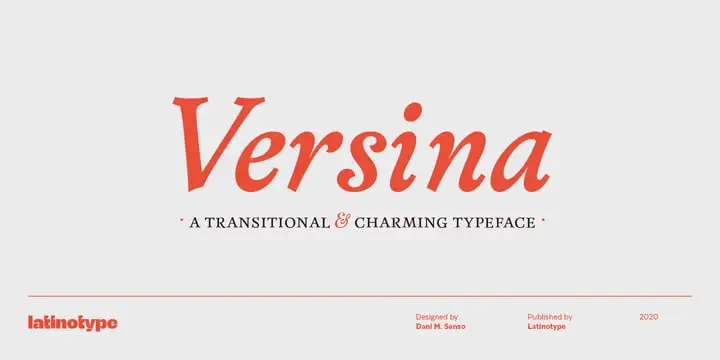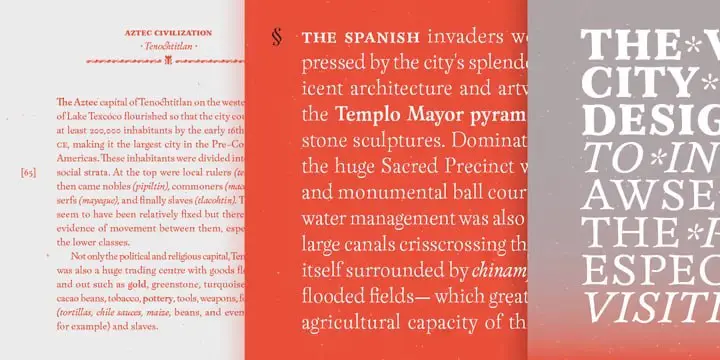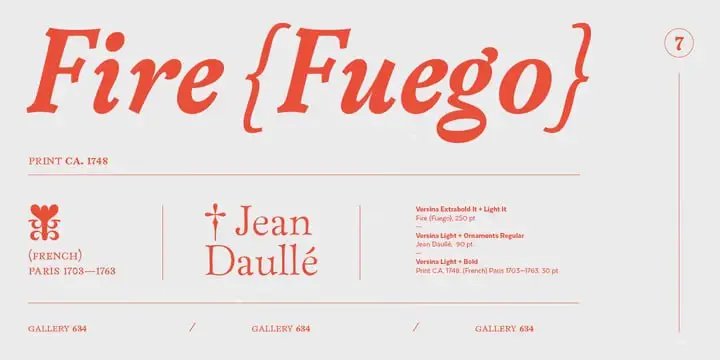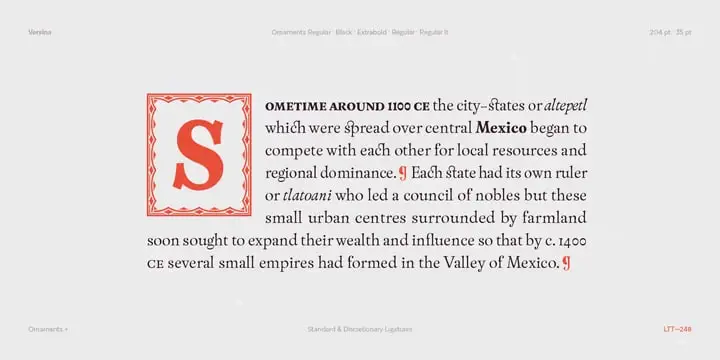
Introducing the Versina Font, a beautifully crafted typeface that combines elegance and modernity. This font is perfect for a variety of applications, whether you’re designing a logo, creating branding materials, or working on web and print projects.
- Styles: Available in Regular, Bold, and Italic styles.
- Weights: Light, Regular, Medium, Bold.
- Ideal for branding projects, including logos and business cards.
- Great for web design, ensuring readability and aesthetic appeal.
- Perfect for print materials such as brochures and flyers.